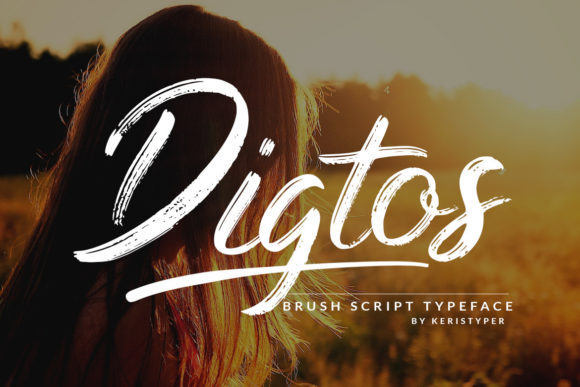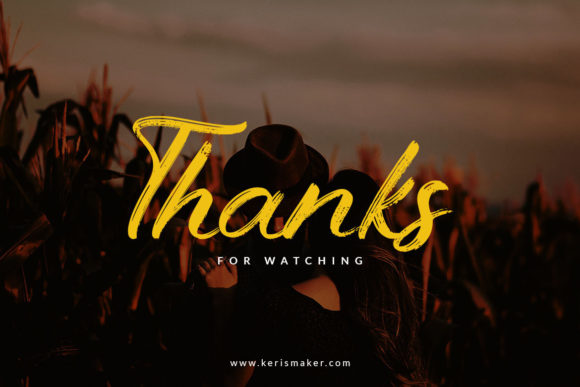
About Digtos Font
Digtos is a cool, brushed and well-balanced script font. Featuring characters that dance along the baseline, this font will add a luxury spark to any design project that you wish to create!